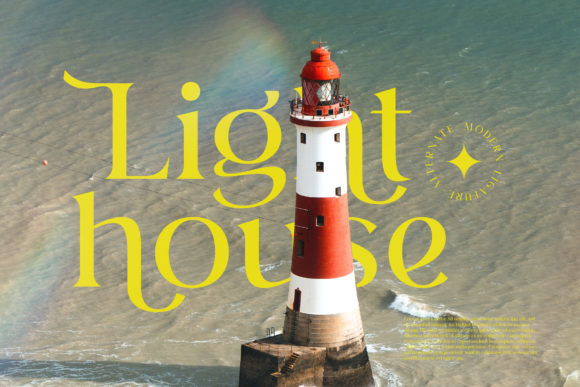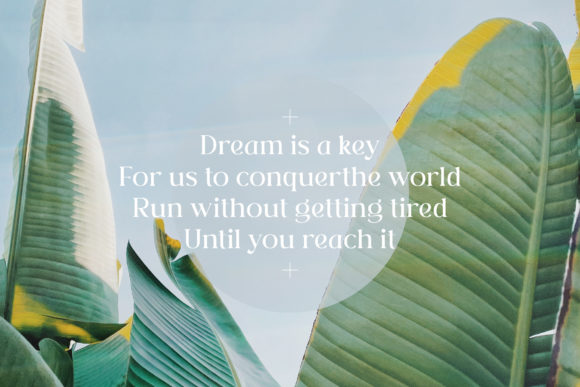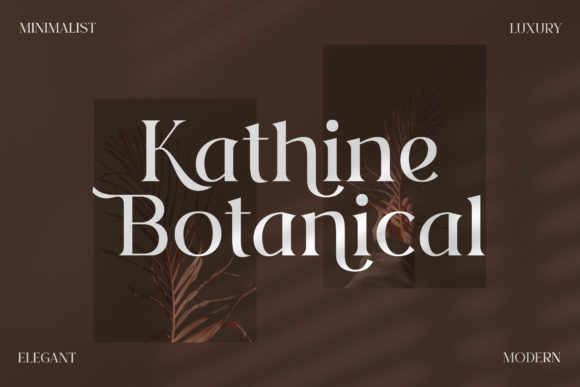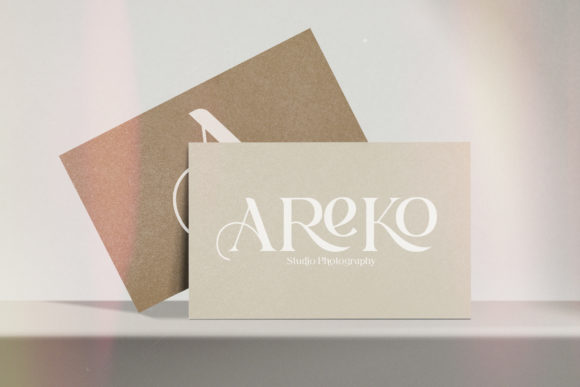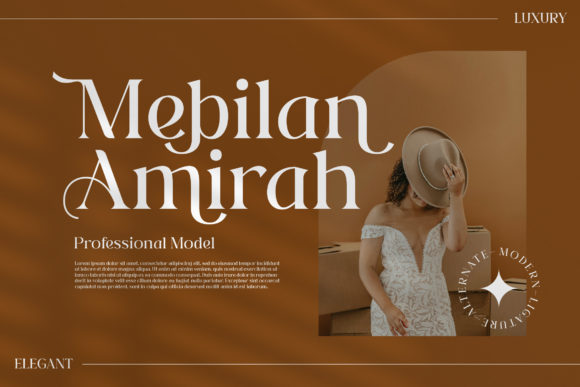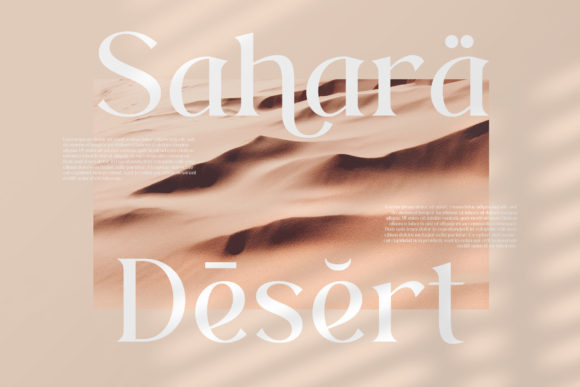
Introduction to Rosha Keylin Font
Have you ever been working on a creative project, pouring your heart and soul into it, only to feel like something’s missing? That’s exactly what happened to me when I was designing a branding campaign for a luxury boutique. I needed a font that would elevate the entire look and feel, and that’s when I stumbled upon the stunning Rosha Keylin Font.
As a designer, I know how valuable it is to have access to high-quality design resources like this font. With its elegant serif style and transparent background, the Rosha Keylin Font is a game-changer for any project. And the best part? It’s free to download, making it an amazing addition to any designer’s toolkit.
Whether you’re working on a free download design or just need a stylish font for your next creative project, the Rosha Keylin Font is sure to impress. In this article, we’ll dive deeper into the world of this incredible font and explore why it’s a must-have for any designer looking to take their work to the next level.
Key Features of Rosha Keylin Font
- High-quality design resource for creative projects, available for free download
- Unique, stylish font with a transparent background, ideal for adding a touch of elegance to designs
- Supports a wide range of languages, making it a versatile design resource for global projects
- Features a high-resolution design, suitable for use in both print and digital applications
- Includes a large character set, including uppercase and lowercase letters, numbers, and punctuation marks
- Perfect for designers looking for a free, high-quality font to enhance their creative projects
Honest Review: Rosha Keylin Font
I recently stumbled upon the Rosha Keylin Font, and I must say it’s been a game-changer for my creative projects. This font is a fantastic design resource that offers a lot of possibilities.
What works well: ✨ The Rosha Keylin Font is incredibly versatile and can be used for a wide range of creative projects. The high-quality design makes it perfect for both digital and print materials. The transparent background allows for seamless integration into any design.
What could be improved: ⚠️ The font library is relatively small, which might limit its use for more complex projects. Additionally, some users might find the font’s style a bit too minimalist.
Overall impression: I’m thoroughly impressed with the Rosha Keylin Font. Its high-quality design, versatility, and ease of use make it an excellent addition to any designer’s toolkit. While it may have some limitations, I believe it’s a great resource for designers looking for a reliable and professional font.
The Rosha Keylin Font is a high-quality, versatile design resource ideal for various creative projects. With its unique style and transparent background, it can elevate your visual content to the next level.